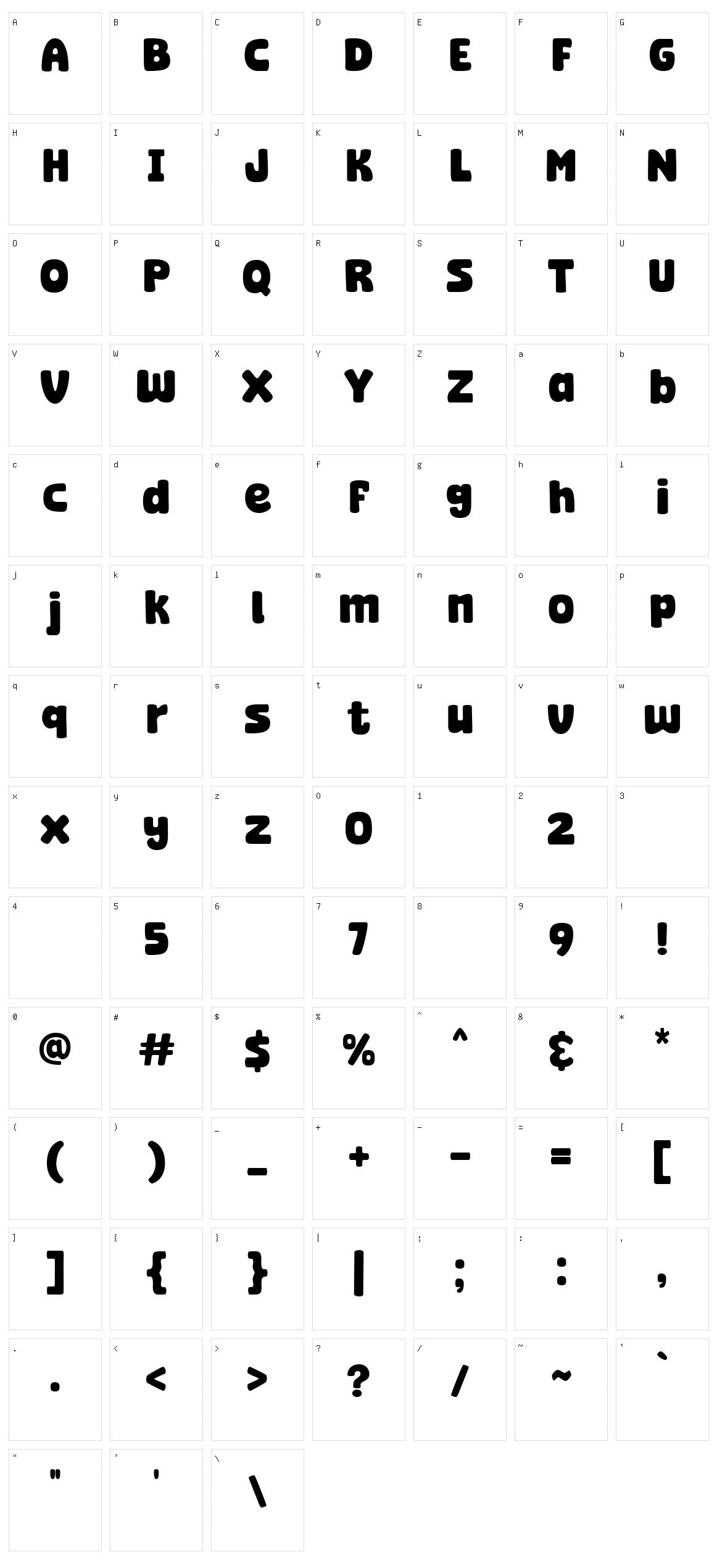
Super Bloom: Where Comics Come Alive!
Super Bloom bursts onto the scene with a vibrant, playful personality that's perfect for adding a touch of comic book magic to your designs.